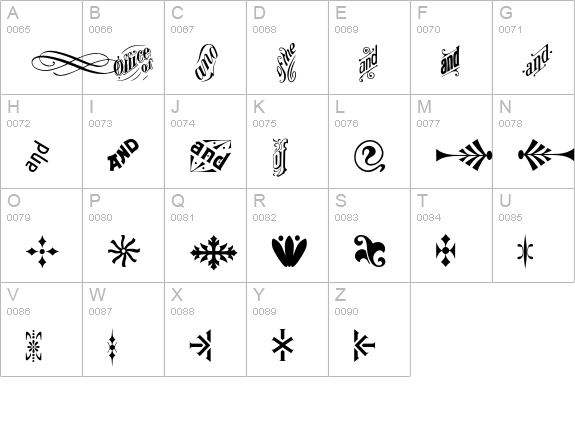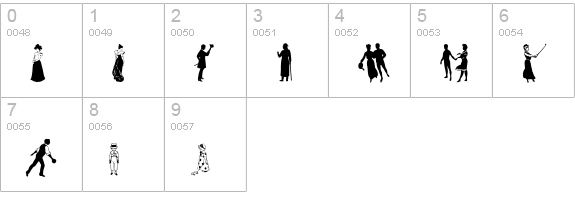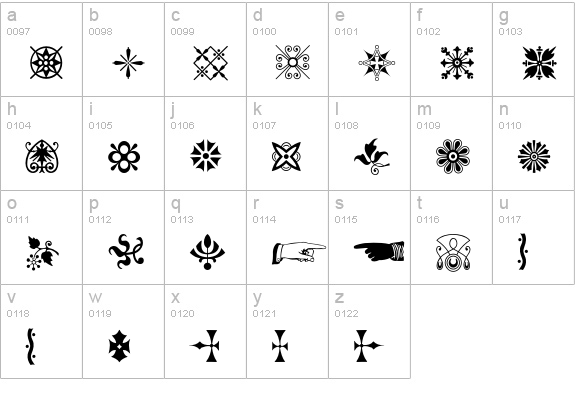
P22Victorian-OrnamentsTwo is a breathtakingly intricate font that embodies the elegance and charm of the Victorian era. With its ornate swirls, delicate curves, and exquisite detailing, this font is a true testament to the craftsmanship of the past. Each character is meticulously designed to evoke a sense of grandeur and sophistication, making it the perfect choice for adding a touch of opulence to any project. From wedding invitations to vintage-inspired logos, P22Victorian-OrnamentsTwo offers endless possibilities for creative expression. Whether you're looking to create a regal crest, adorn a luxurious packaging design, or simply add a touch of nostalgia to your digital artwork, this font is sure to captivate and impress. What makes P22Victorian-OrnamentsTwo even more enticing is that it is freely available to download at FontsMarket.com. Yes, you read that right – this extraordinary font can be yours with just a few clicks. FontsMarket.com is your go-to source for high-quality fonts, and P22Victorian-OrnamentsTwo is no exception. So, why wait? Embark on a journey back in time with P22Victorian-OrnamentsTwo and let its intricate details and timeless beauty transport you to the Victorian era. Download this font today for free at FontsMarket.com and unlock a world of endless creative possibilities.